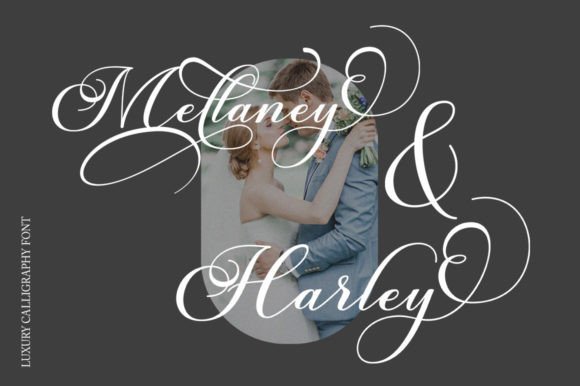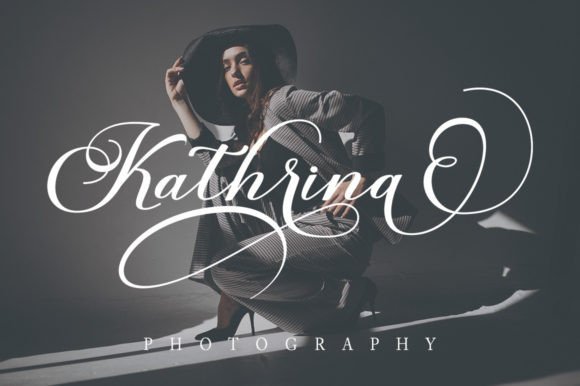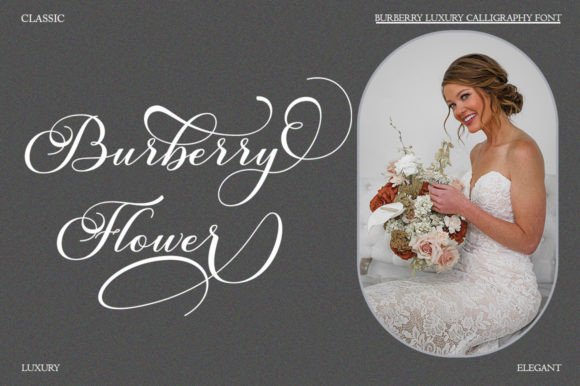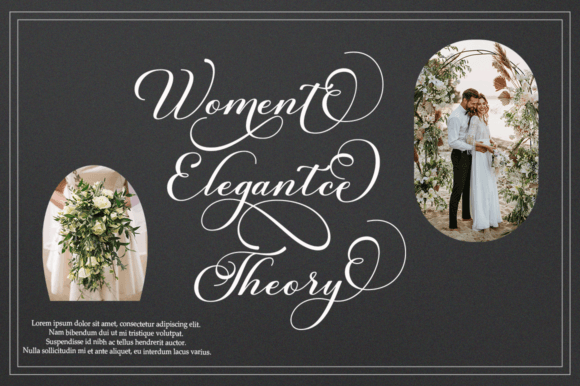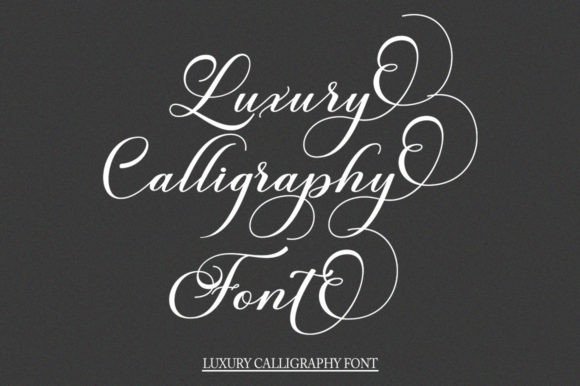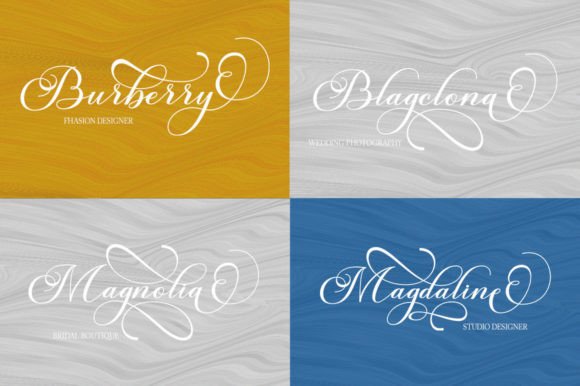
Burberry Script Font: Elevate Your Designs with Elegance and Sophistication
Are you a designer or crafter looking for a font that exudes luxury, elegance, and sophistication? Look no further than the Burberry Script Font. This dazzling script font is a perfect addition to any font library, and its versatility makes it suitable for a wide range of design projects. In this article, we’ll explore the features and benefits of Burberry Script, and why it’s a must-have for any creative professional.
What is Burberry Script Font?
Burberry Script is a beautifully crafted script font that boasts intricate details and a refined aesthetic. Its elegant letterforms and flowing connections make it perfect for creating stunning designs that require a touch of sophistication. Whether you’re working on a branding project, packaging design, or social media graphics, Burberry Script is sure to impress.
Key Features of Burberry Script Font
- PUA Encoding: Burberry Script is PUA (Private Use Area) encoded, which means you can access all the glyphs and ligatures with ease. This feature allows you to unlock the full potential of the font and experiment with different design elements.
- Highly Detailed: The font is meticulously crafted with attention to detail, ensuring that every letterform and swash is perfect for use in high-end designs.
- Versatile: Burberry Script is suitable for a wide range of design projects, from luxury branding and advertising to packaging and digital graphics.
- Elegant and Sophisticated: The font’s refined aesthetic and flowing connections make it perfect for creating designs that exude elegance and sophistication.
Benefits of Using Burberry Script Font
So, why should you choose Burberry Script for your design projects? Here are just a few benefits of using this amazing font:
- Enhance Your Designs: Burberry Script has the potential to elevate any creation, adding a touch of luxury and sophistication that’s sure to impress.
- Save Time: With PUA encoding, you can access all the glyphs and ligatures with ease, saving you time and effort in the design process.
- Stand Out from the Crowd: Burberry Script is a unique and distinctive font that’s sure to help your designs stand out from the crowd.
- Perfect for Branding: The font’s elegant and sophisticated aesthetic makes it perfect for use in branding and advertising projects.
Tips and Tricks for Working with Burberry Script Font
Here are a few tips and tricks for getting the most out of Burberry Script:
- Experiment with Different Sizes: Burberry Script looks great in a variety of sizes, from small and delicate to large and bold.
- Pair with Other Fonts: Try pairing Burberry Script with other fonts to create a unique and eye-catching design.
- Use Swashes and Ligatures: Don’t be afraid to experiment with swashes and ligatures to add an extra touch of elegance to your designs.